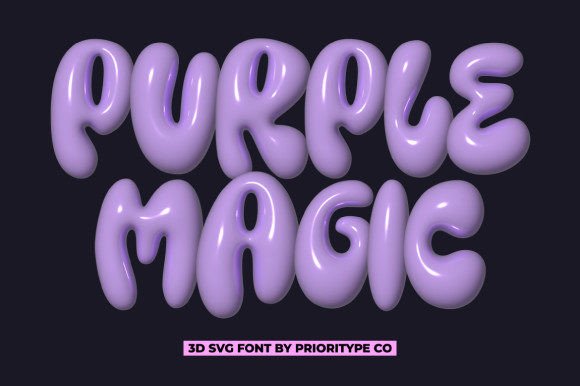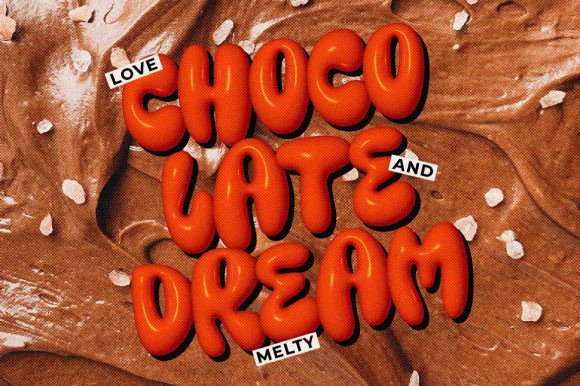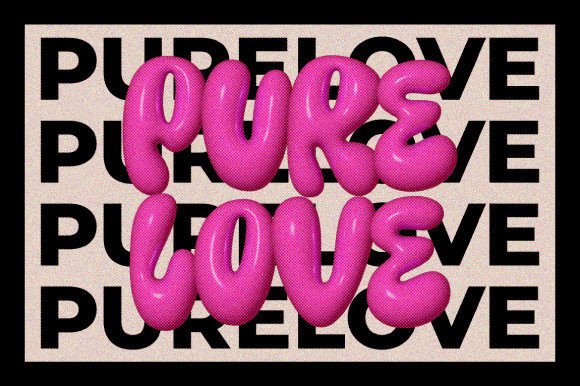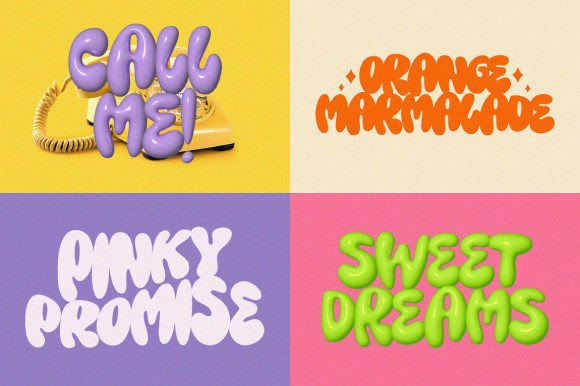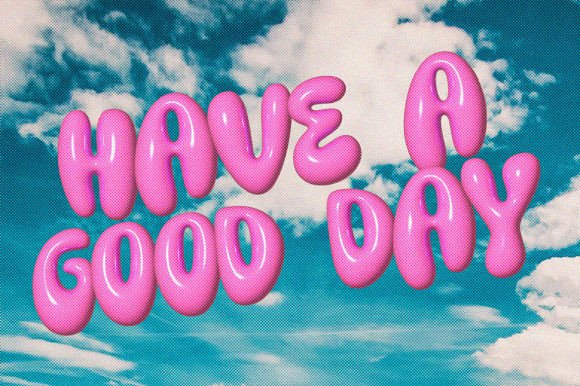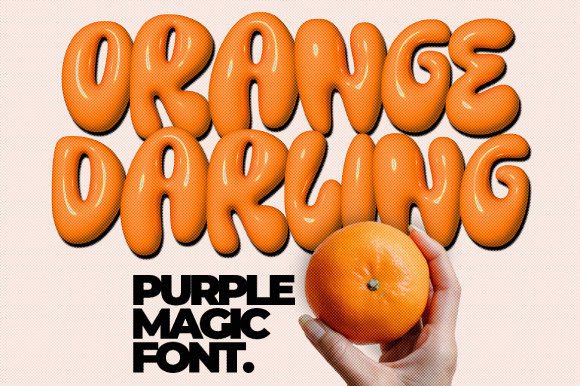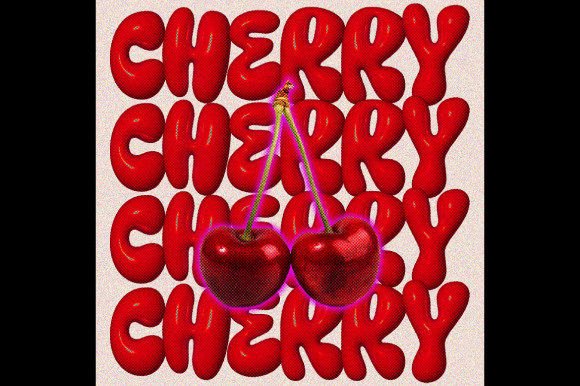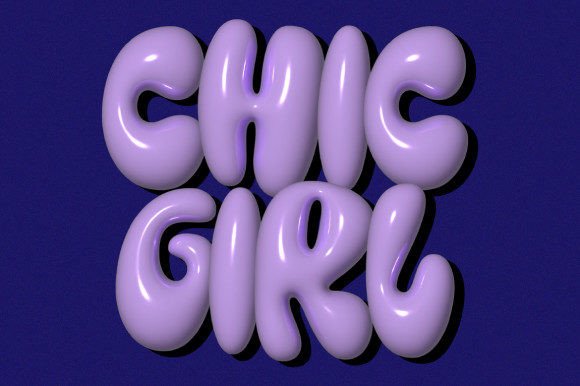
Purple Magic Font
Purple Magic – 3D SVG Font
Hand-drawn chubby font with 2 styles namely (3d svg and regular). It is perfect for contemporary designs. Great for poster designs, social media posts, logos, etc.